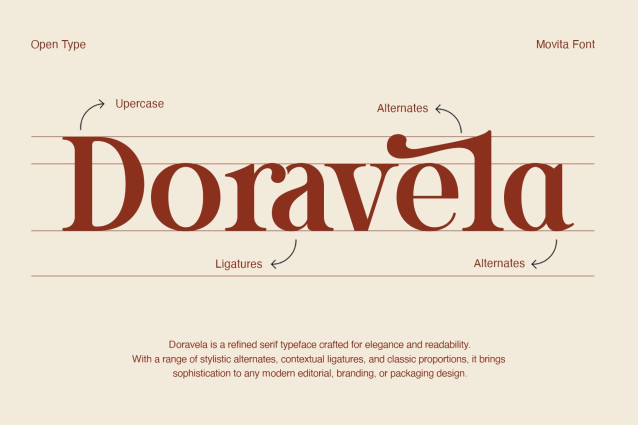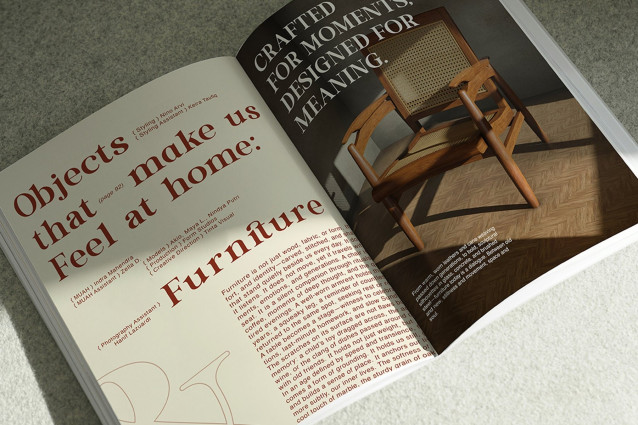
Movita Font
Movita Font – a refined serif font designed to elevate your creative projects. Take a closer look at those graceful curves and harmonious proportions. Movita isn’t just another serif—it’s a statement of sophistication, created to blend classic charm with a fresh, contemporary touch.
Imagine your logo, headline, or invitation set against a Movita backdrop. It’s more than just a letterform—it’s an experience. Whether you’re rebranding, designing editorial content, or setting the tone for a special event, Movita offers the perfect balance of tradition and modern flair.
Why settle for ordinary when you can command attention with something this unique? Go ahead—let your next design speak for itself with Movita’s graceful presence.
Ready to see what elegance can do for your work? Movita is here to help your story shine, one stylish letter at a time.Crafted with care and precision, TG Movita includes:
Beautiful ligatures for seamless letter combinations
Elegant alternates to add expressive typographic flair
Strong vertical rhythm and optical balance
Single weight with refined proportions for clear legibility
From magazine spreads and lookbooks to boutique logos and beauty packaging, TG Movita brings a sense of drama, refinement, and visual harmony to every layout.